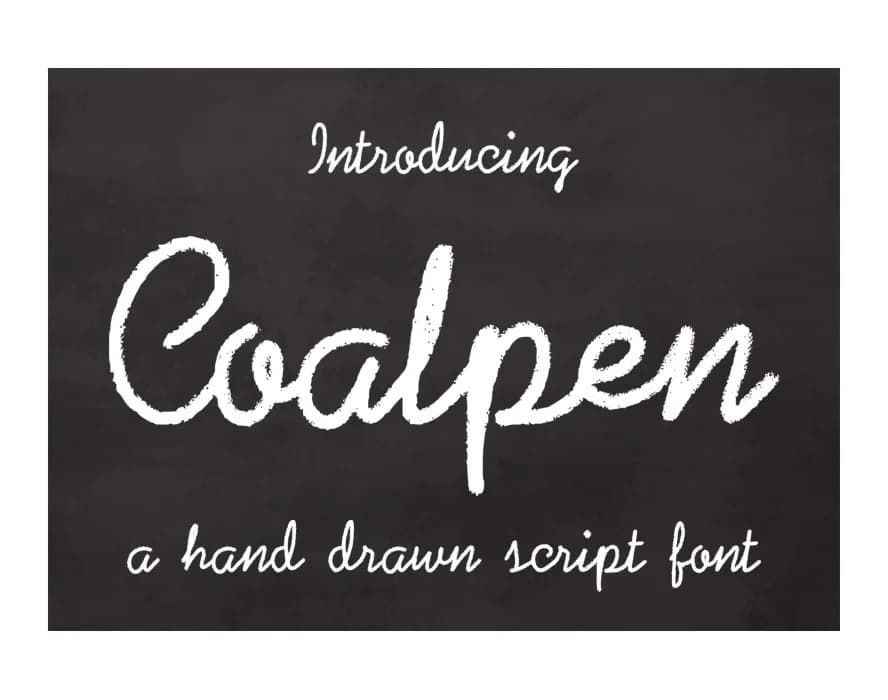
About Coalpen Font
Coalpen Font by Digital Typeface Studio is a flowing handwritten script that channels the spontaneity and warmth of pen-and-paper lettering. Each letterform carries genuine character, curves that feel alive, strokes that breathe with natural variation and authentic hand-drawn quality. The design captures that ineffable quality of skilled handwriting: legible yet deeply personal, structured yet unmistakably organic. This is a typeface created specifically for creative work that demands both personality and individuality while maintaining readability and professional presentation standards. Whether you're designing luxury wedding invitation suites, creating rustic product labels for artisan goods, developing cohesive brand identity systems, or crafting custom social media headers, Coalpen brings an authentic handwritten voice to each application. Its flowing letterforms add genuine dimension to packaging design for boutique retailers and creative entrepreneurs, making everyday packaging feel thoughtfully designed and intentional. The typeface performs equally well across event stationery systems, personal correspondence, editorial spreads, and lifestyle branding where warmth and authenticity matter most to your audience. Licensed for commercial use, Coalpen is ready to bring genuine character and hand-lettered warmth to your next creative project. Get Coalpen Font on Creative Fabrica and discover how this expressive script transforms ordinary designs into work that feels personally crafted.
Coalpen Font is a script font that shines as a display or heading face. Pair it with a clean sans-serif or serif font for body text β the contrast creates a clear hierarchy while the two styles stay balanced and easy to read.